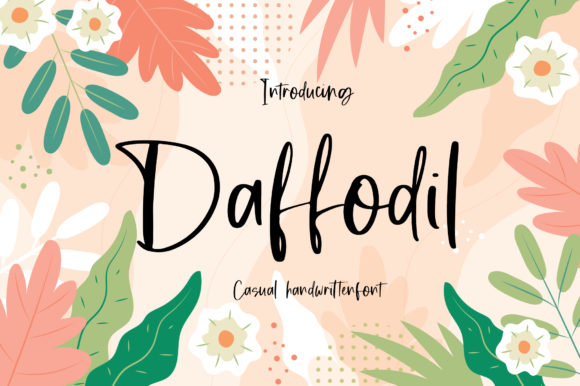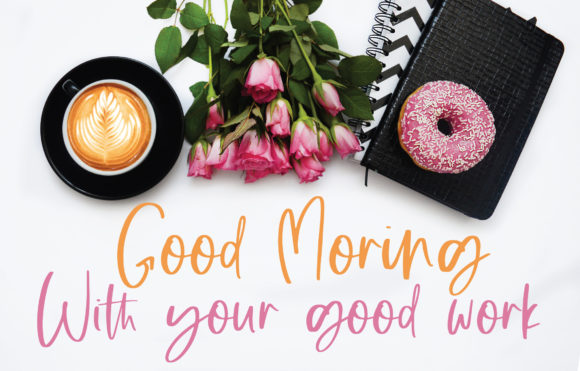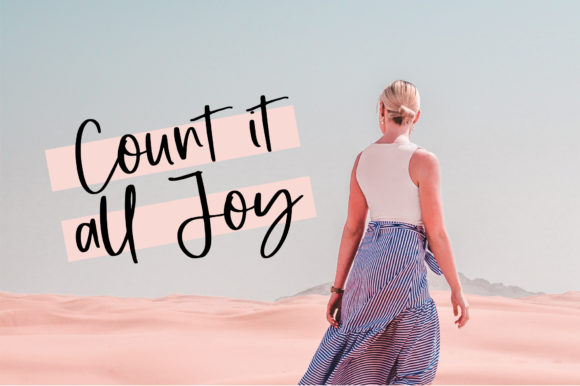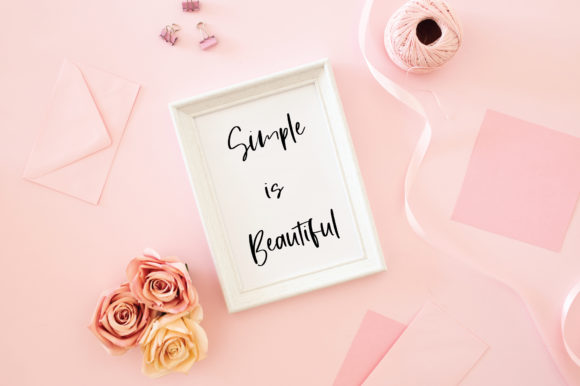
HomeScript FontsDaffodil Font Script Fonts Daffodil Font FacebookXPinterestWhatsApp Daffodil Font Poster 2 Daffodil Font Poster 3 Daffodil Font Poster 4 About Daffodil Font Daffodil is a stunning and casual handwritten font with an incredibly friendly feel. DOWNLOAD ON CREATIVE FABRICAThis font is sold and delivered by Creative Fabrica. Font Canyon may earn a commission if you buy through this link. People also explored Trending Font Angulata Font Mystery Night Font Barkley Font Magneon Font Vanessa Font Storynight Font Patrez Font Dino School Font 295 0 TagsDaffodil Font Previous articleHarmonic FontNext articleMillythea Font LEAVE A REPLY Cancel reply Comment: Please enter your comment! Name:* Please enter your name here Email:* You have entered an incorrect email address! Please enter your email address here Website: Save my name, email, and website in this browser for the next time I comment. Personal Use Free Chandella Personal Use Free Read more about this font Comic Caps Personal Use Free Read more about this font Triangular Curves Personal Use Free Read more about this font Underwood Champion Personal Use Free Read more about this font BLOG Elegant Wedding Invitation Fonts – Handwritten & Script Fonts Elegant Wedding Invitation Fonts Your wedding day is one of the most important moments of your life, and every detail matters—including your invitation design. Our... Free Fonts Risk: Why Free Fonts Can Be Dangerous for Designers To increase your work productivity, choose the most readable fonts. Best Fonts for YouTube Videos: Make Your Thumbnails Stand Out